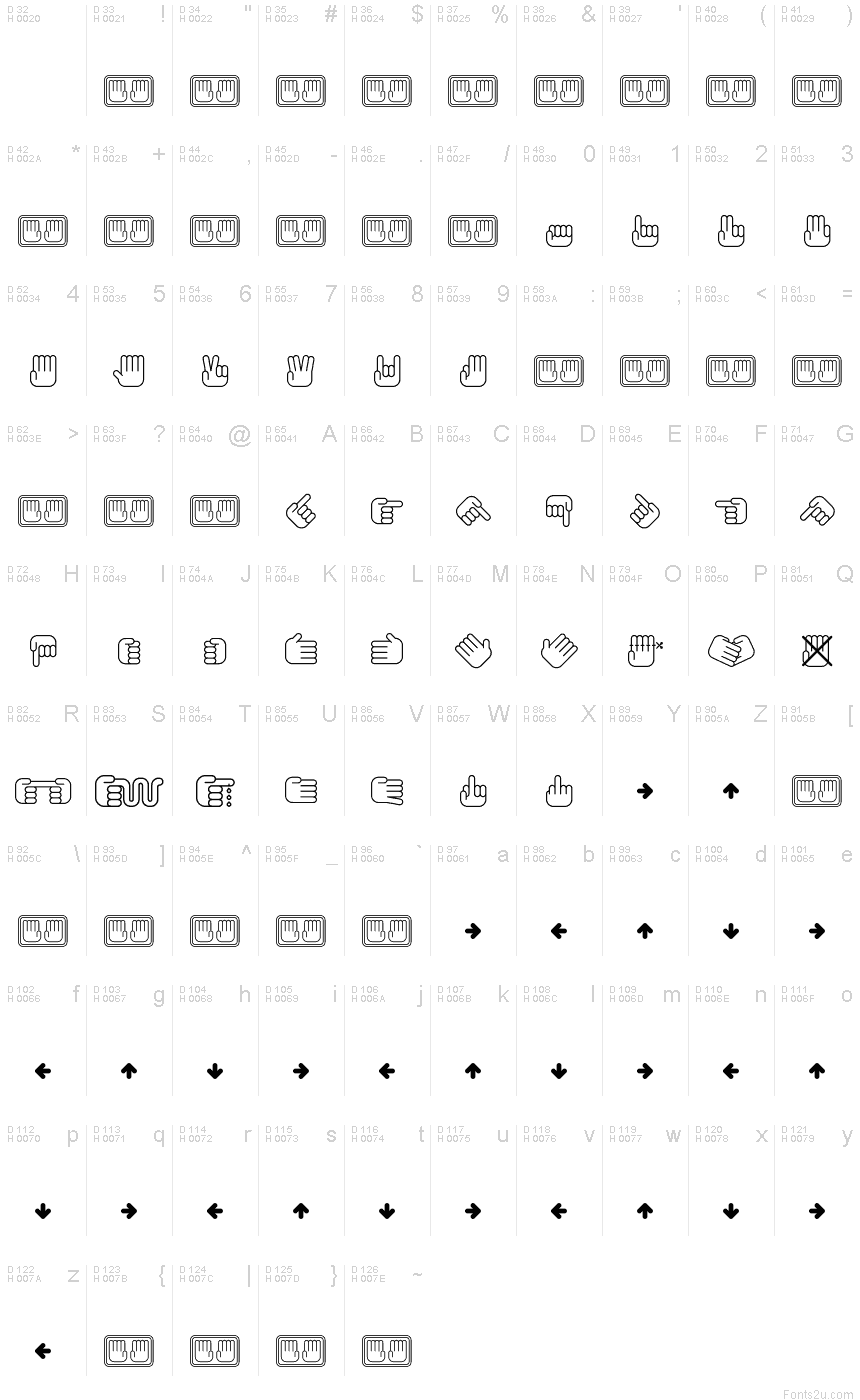
All My Hands
All My Hands font by Lindkvist is a free dingbats typeface that turns simple arrows and hand gestures into bold, easy-to-read icons. The symbols are chunky, clean, and slightly rounded, so they stay legible even at small sizes while still feeling friendly and human at larger scales. Clear up cluttered instructions, step-by-step guides, or callouts with straightforward pointing hands and arrows that read at a glance.
Using All My Hands in your layouts makes directions and emphasis instantly obvious on infographics, wayfinding posters, UI mockups, tutorial PDFs, worksheets, and slide decks. This free font shines when you need quick visual cues without hunting through icon sets or exporting SVGs. For a polished look, pair it with a simple sans serif for text and keep the dingbats one or two sizes larger to act as crisp visual anchors.